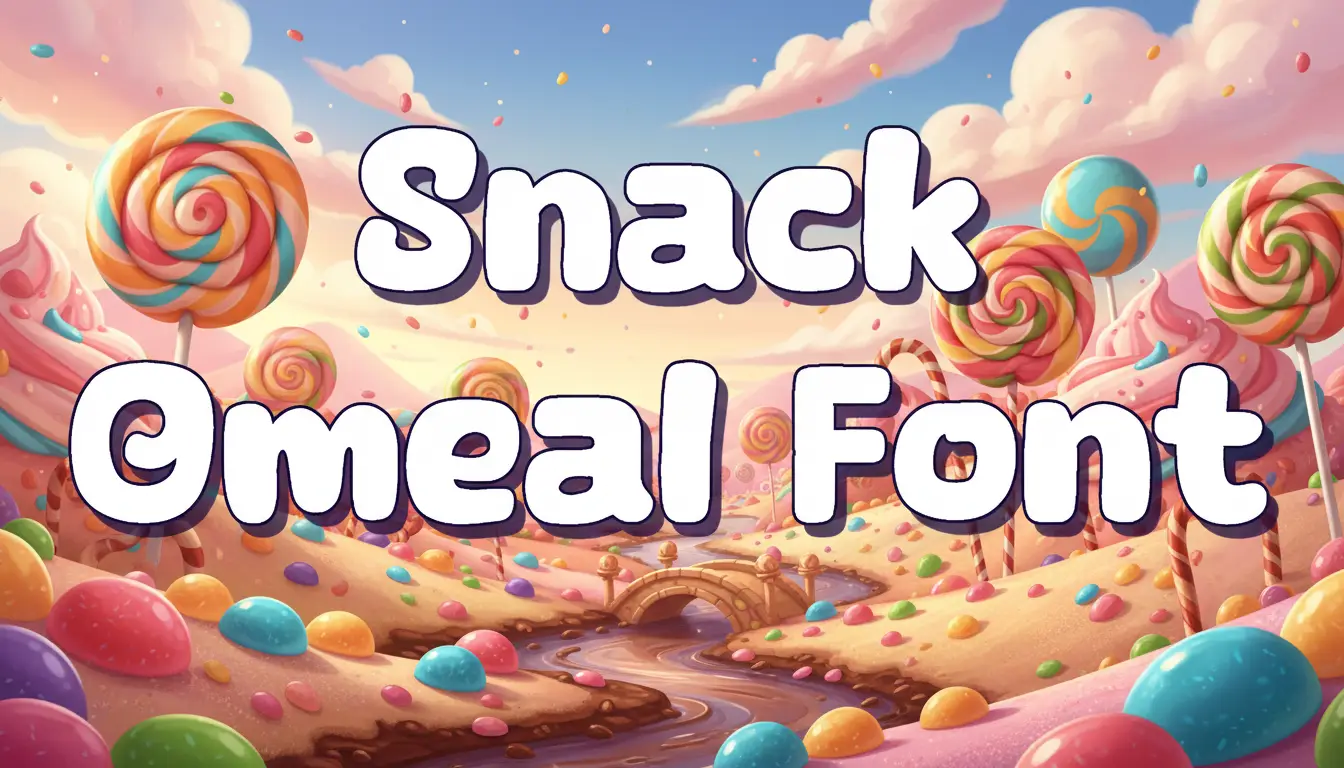
Snack Omeal Font
Snack Omeal
Snack Omeal is a cartoon font made by Khurasan. It has a cheerful, hand-drawn look that makes people smile before they even read the words. You can download it for free and test it with your own words in the preview above.
What You Can Type With Snack Omeal
Snack Omeal covers the full alphabet in upper and lowercase, plus all ten numbers, so you can set names, dates and prices without switching fonts. Everyday marks like &, !, ? and @ are there too. There are no accented letters like é or ñ, so it's best kept to English text.
Where Snack Omeal Works Best
Designers usually reach for fonts like Snack Omeal when they're making kids' books, birthday invites and fun YouTube thumbnails. Cartoon fonts are great for short, fun lines. If you place it over a busy photo, add a thick outline or a drop shadow so it stays readable.
Does Snack Omeal support accented letters?
No. Snack Omeal has no accented letters such as é, ñ or ü, so it's best for English text.